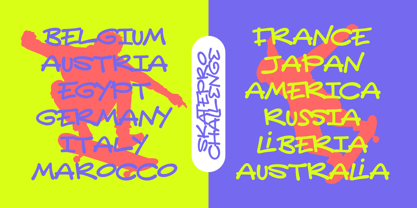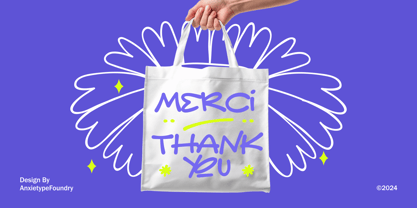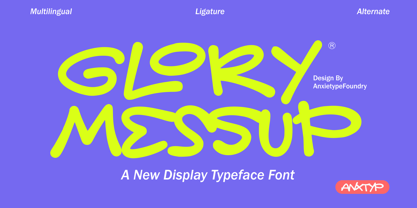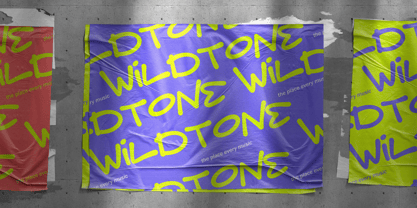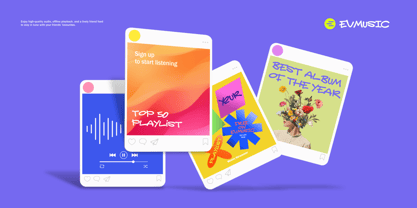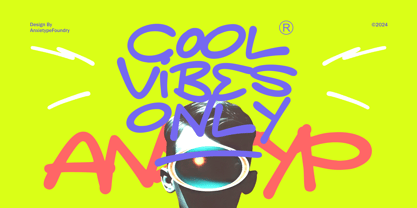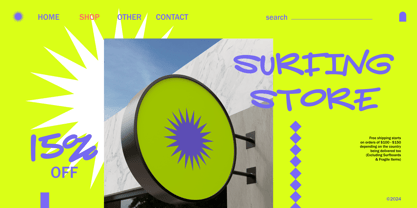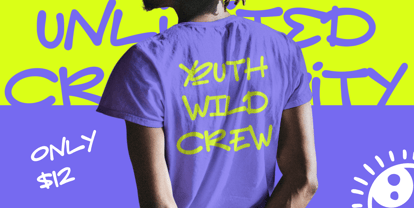
Glory Messup
by Anxietype Foundry
The Glory Messup Font Family was designed by Annas Rifky Anhar and published by Anxietype Foundry. Glory Messup contains 1 styles. More about this family
Introducing Glory Messup: An exquisite display font meticulously crafted by Anxietype Foundry. Exuding sophistication and a modern edge, this font perfectly embodies the union of style and functionality. Glory Messup effortlessly enhances branding aesthetics, adds an opulent touch to websites, gives streetwear a unique twist, and seamlessly fits into fashion projects or app interfaces. Experience the transformative power of typeface with Glory Messup.